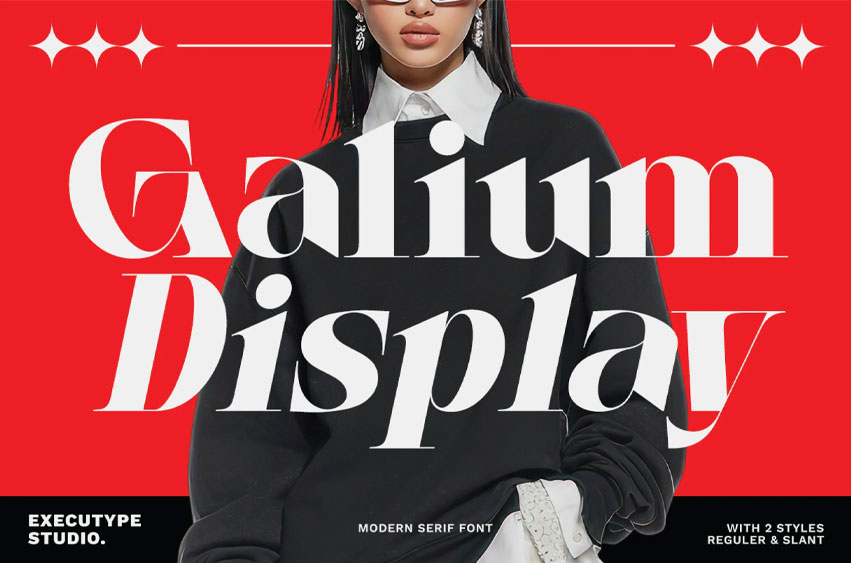
Galium Display Font is a modern serif typeface that exudes elegance, confidence, and sophistication. Crafted for designers who seek bold visual impact with a refined, contemporary feel.
This font comes in two distinctive styles — Regular & Slant, giving you the flexibility to create dynamic typographic compositions across a variety of design projects, from editorial layouts and brand identities to fashion campaigns and digital content.
With its sharp serifs, high contrast strokes, and stylish curves, Galium Display delivers a luxurious and modern aesthetic that’s perfect for headlines, logos, or high-end branding materials.
- 2 Styles: Regular and Slant
- Multilingual Support
- Stylistic Alternates & Ligatures
- Ideal for: Editorial Design, Logos, Branding, Fashion, Posters, and more!!!
Galium Display is more than just a typeface — it’s a visual statement. Elevate your design work with a font that merges modern sophistication with timeless charm.